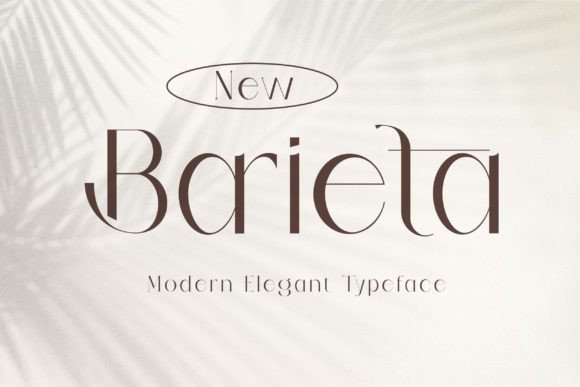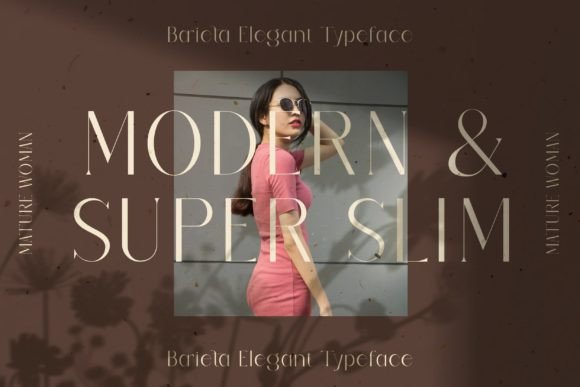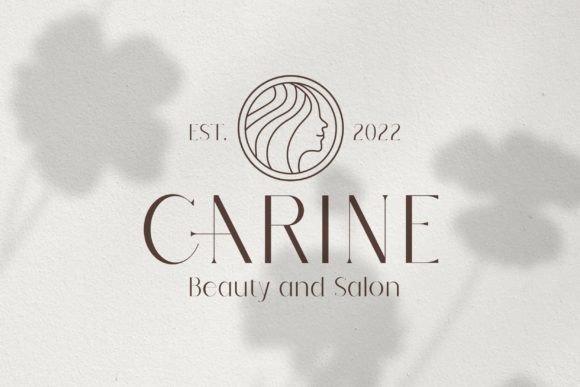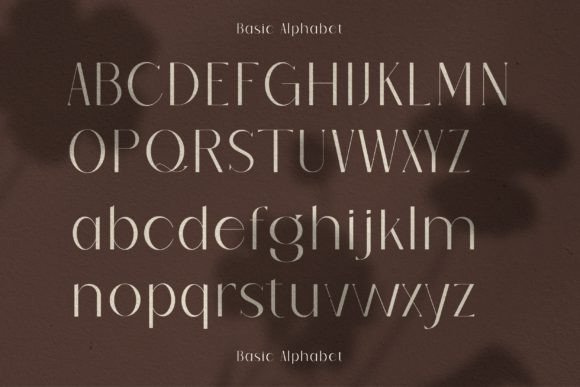
Barieta Font: A Modern & Minimalist Font for Elegant Logo Design
About the Barieta Font
Welcome to the world of Barieta Font, a typeface that will inspire your next great project. Barieta is a super thin and stylish modern Font, this font is made for those of you who like unusual styles. Barieta font is great for big logo and headline design projects,
Barieta Font Usage Examples
Barieta Font Example